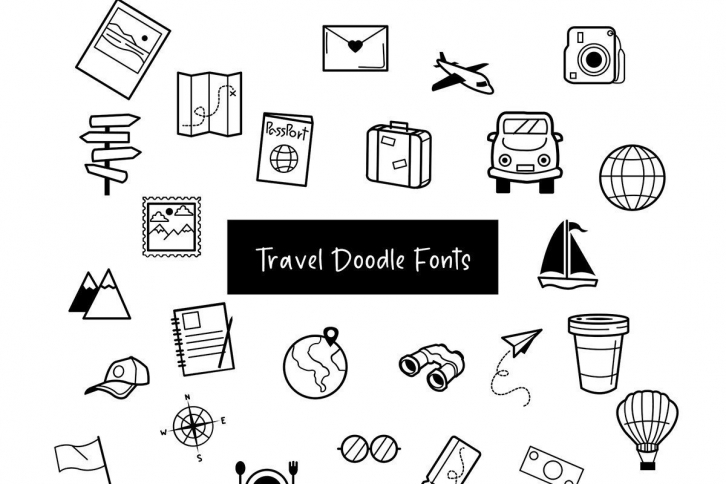
Travel Doodle is a playful and modern script font. Featuring a lightweight, it offers support for all characters of the English language. Travel Doodle is perfectly suited for traditional media and the web. Great for crafters and graphic artists alike. Compatible with tools such as Photoshop or Illustrator. Its playfulness makes it great for creative projects, be it an inspirational diary or for presenting your report.